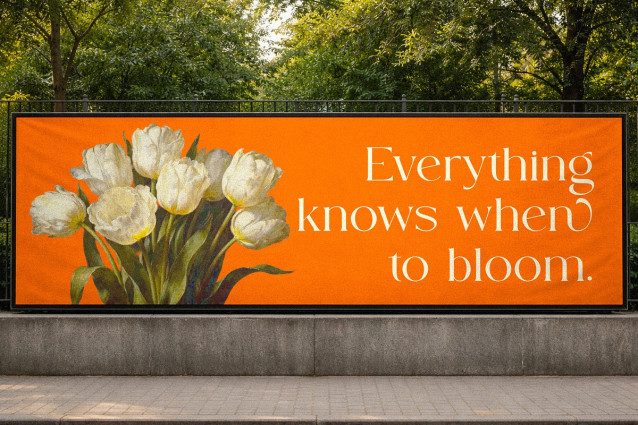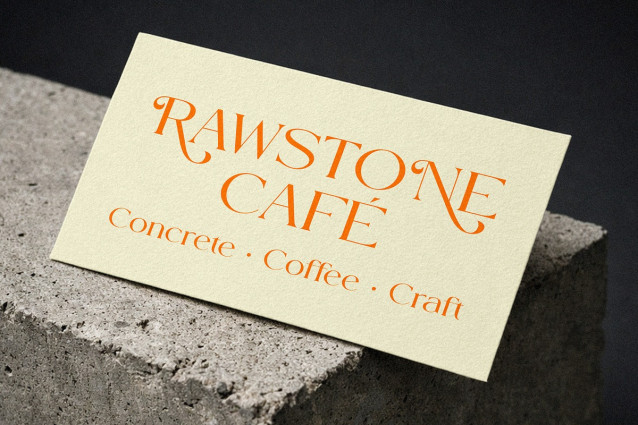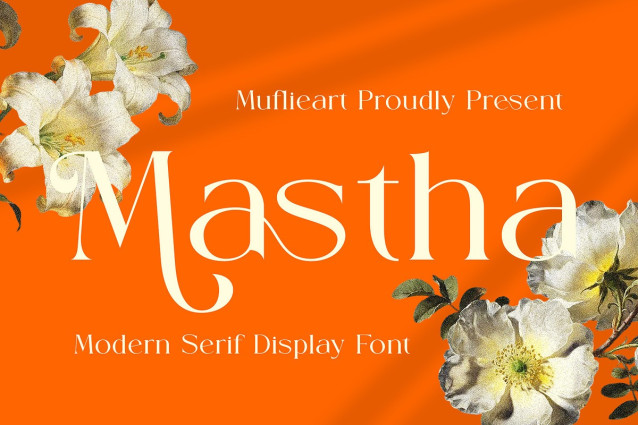
Mastha Font
Mastha Font brings a luxurious, classy, ​​and clean style to your projects such as websites, modern logos, brand identities, social media quotes, wedding stationery, magazines, and more!
Mastha features unique and classy capital letters A to Z and also comes with unique alternates and ligatures making Mastha a beautiful font that can be customized for various projects and jobs you want.
Mastha is perfect for: logos, brands, wedding invitations, business cards, greeting cards, posters, magazines, social media, agenda prints, and websites.